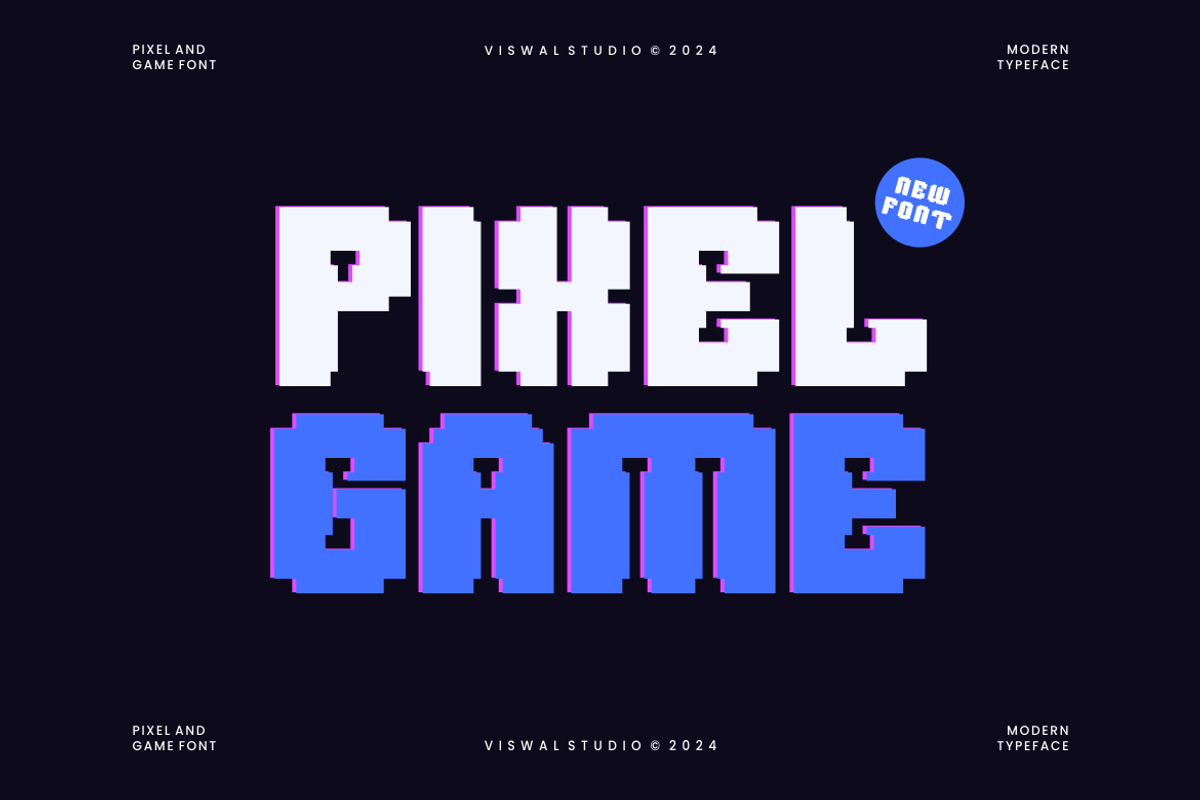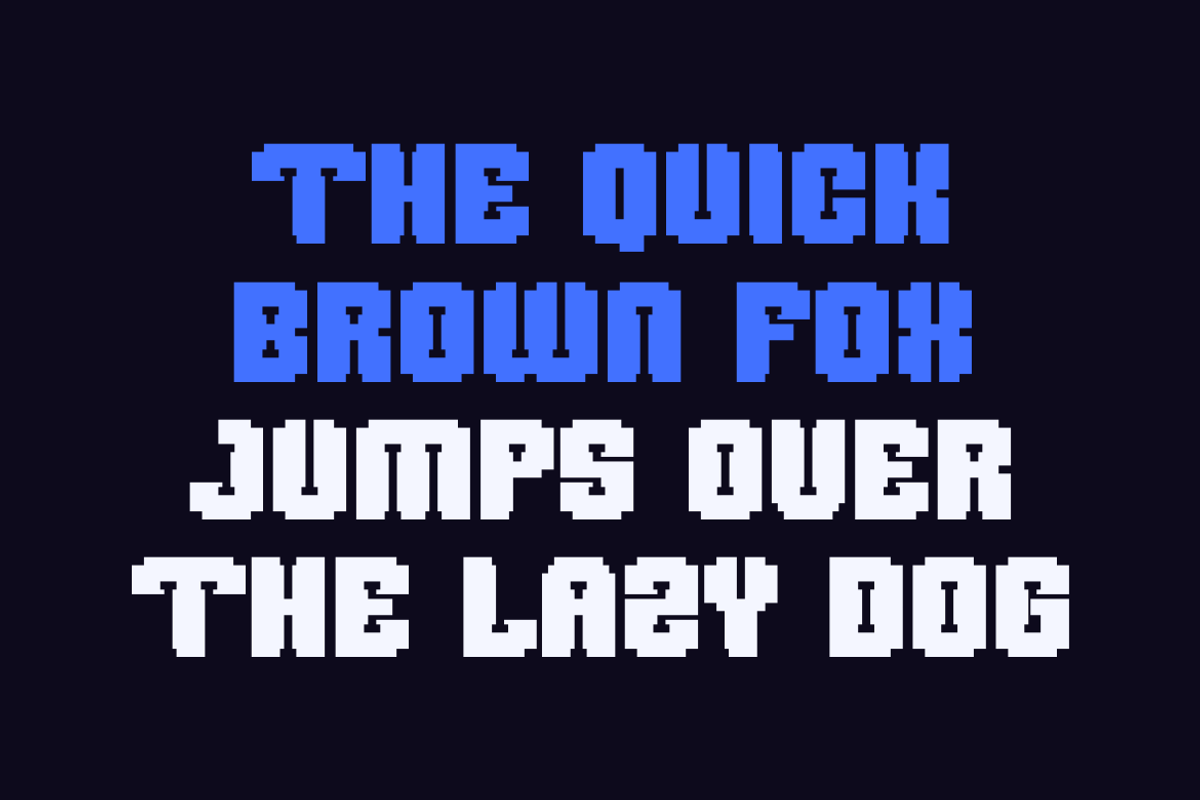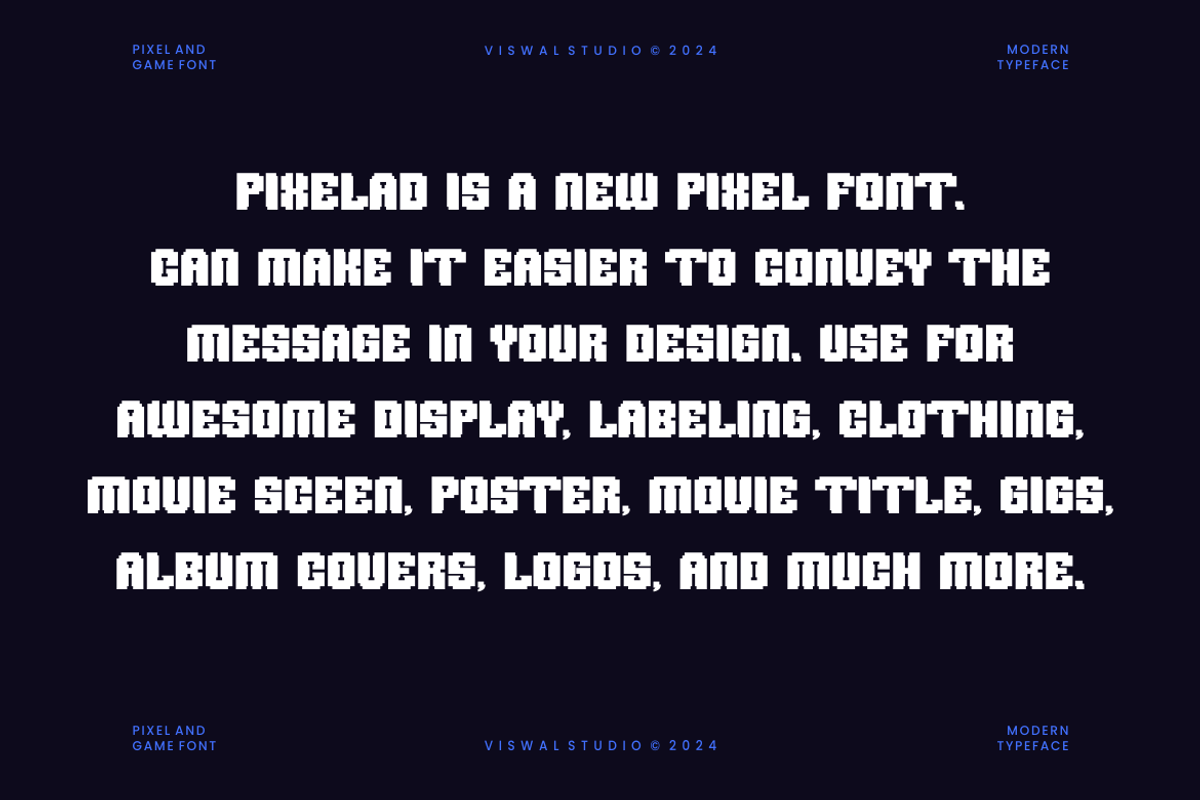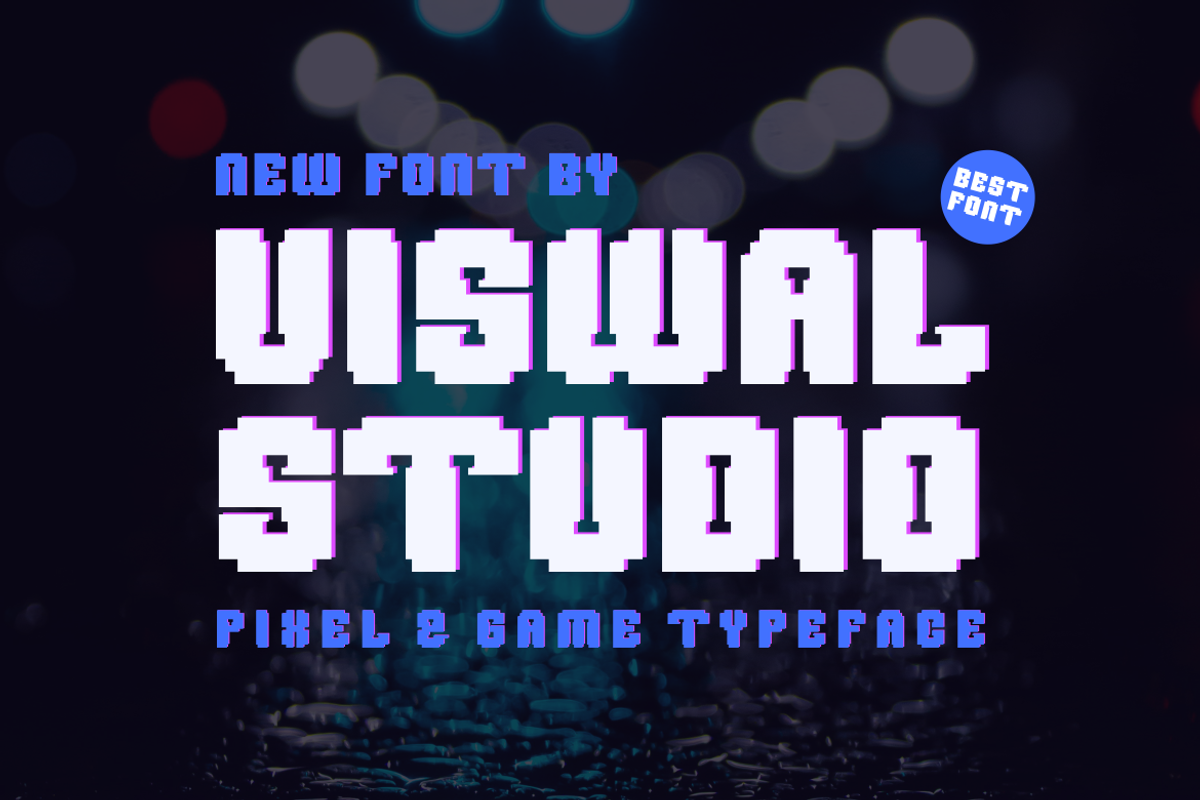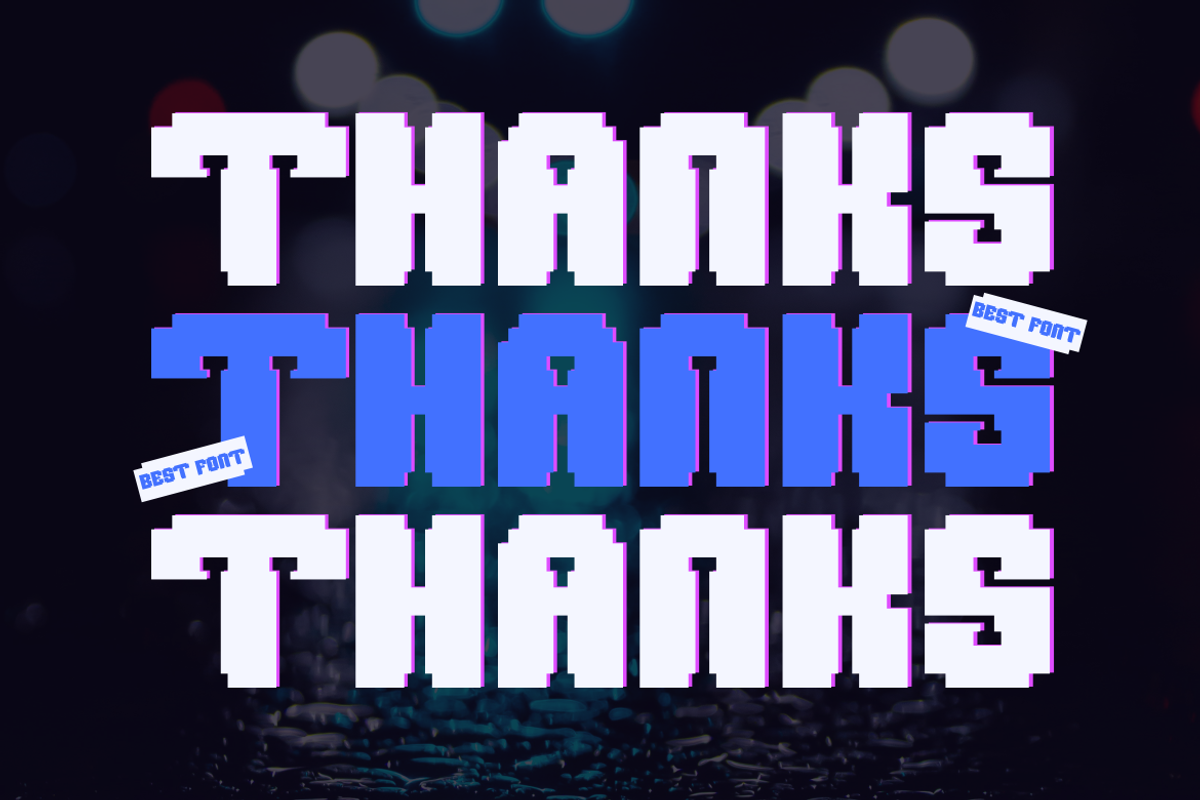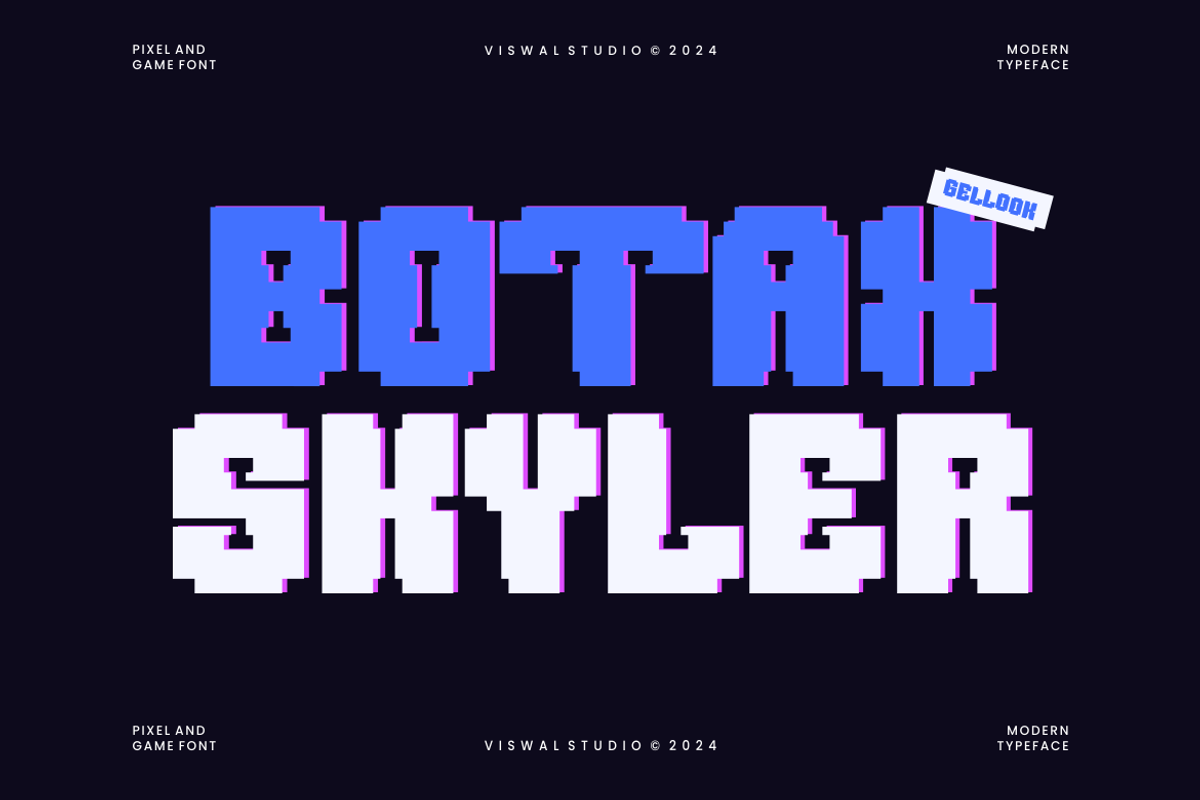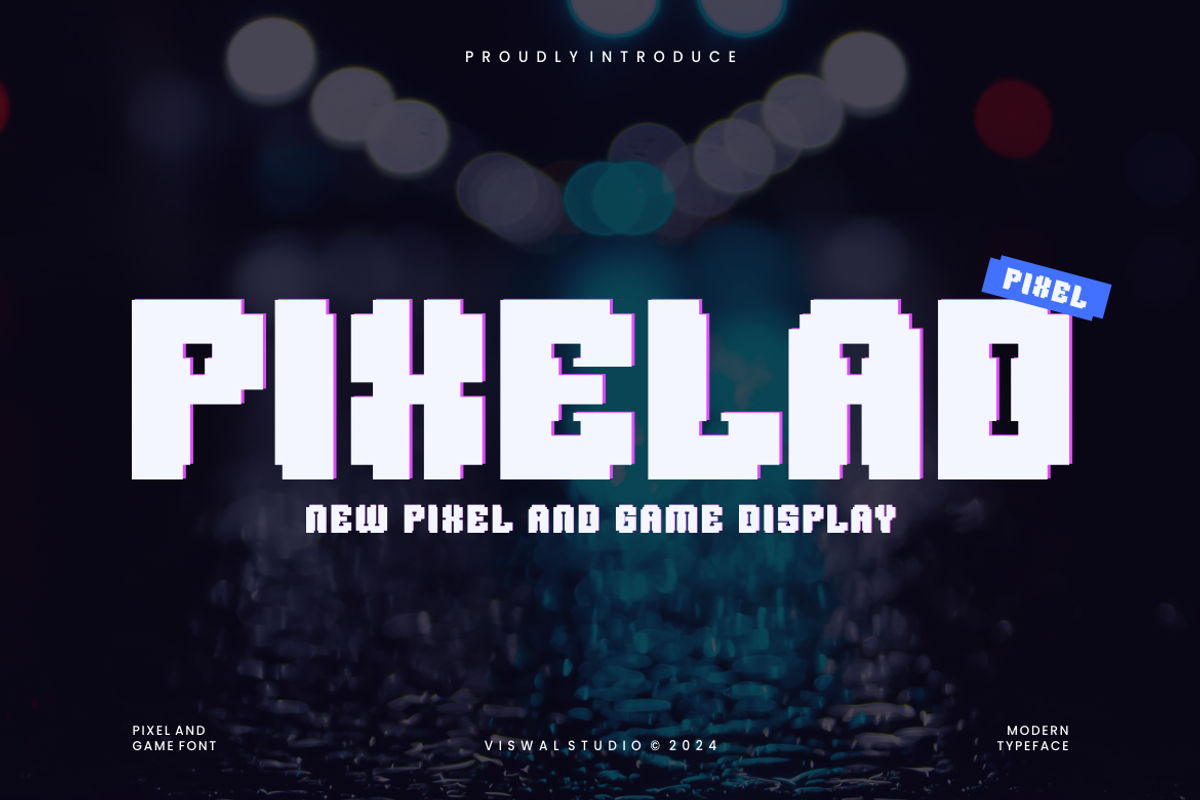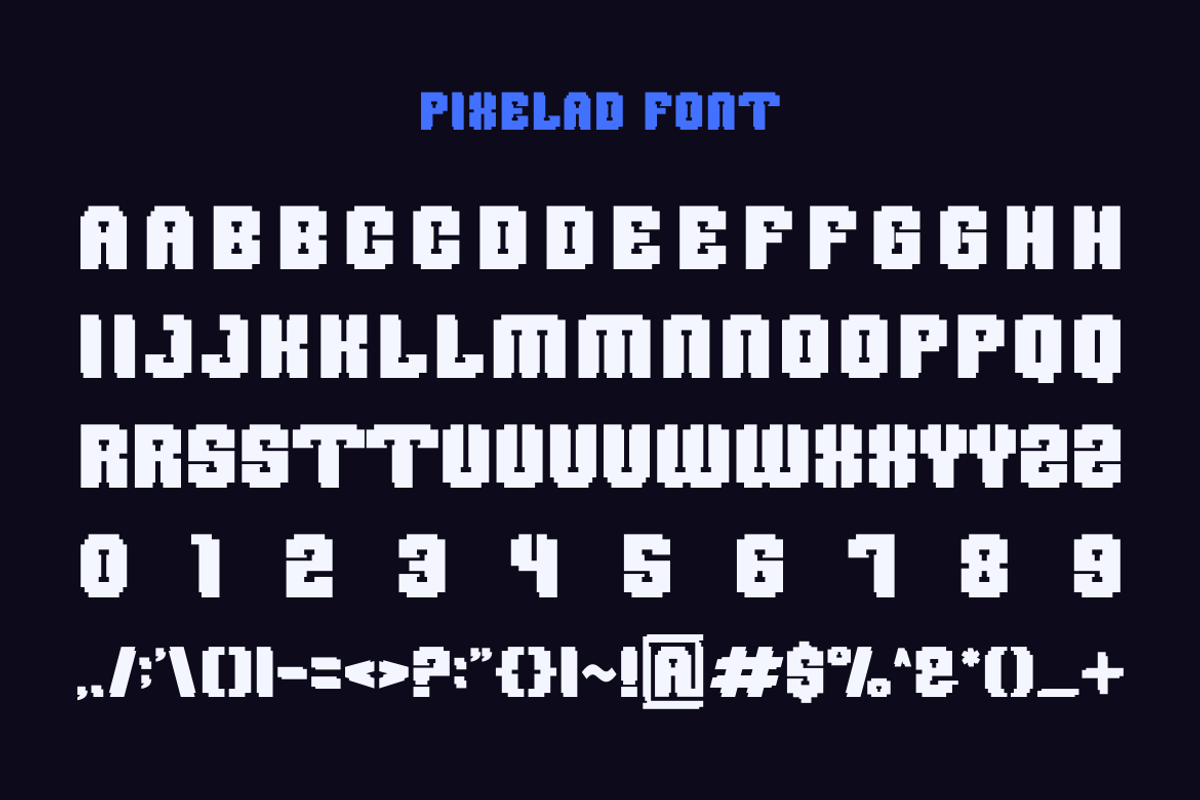
Pixelad - Modern Pixel Font
Presenting Pixelad Is A Modern Pixel Font
Can Make It Easier To Convey The Message In Your Design. Font Is Suitable For Logo, Labels, Badge, Branding, Magazine, Poster, Title, Gigs, Covers And Etc. Our Fonts Have Uppercase & Lowercase, Numeral & Punctuation, And Opentype Features. For Amazing Designs You Can Mix With Other Fonts As A Complement.